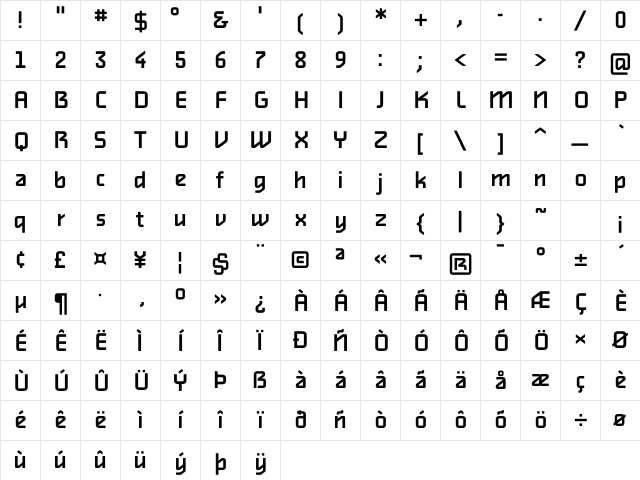
Complete AlphavilleMedium Regular glyph index. Displaying only characters natively supported by AlphavilleMedium Regular font.
AlphavilleMedium is a composed and adaptable typeface that performs quietly and consistently across a wide range of design contexts.